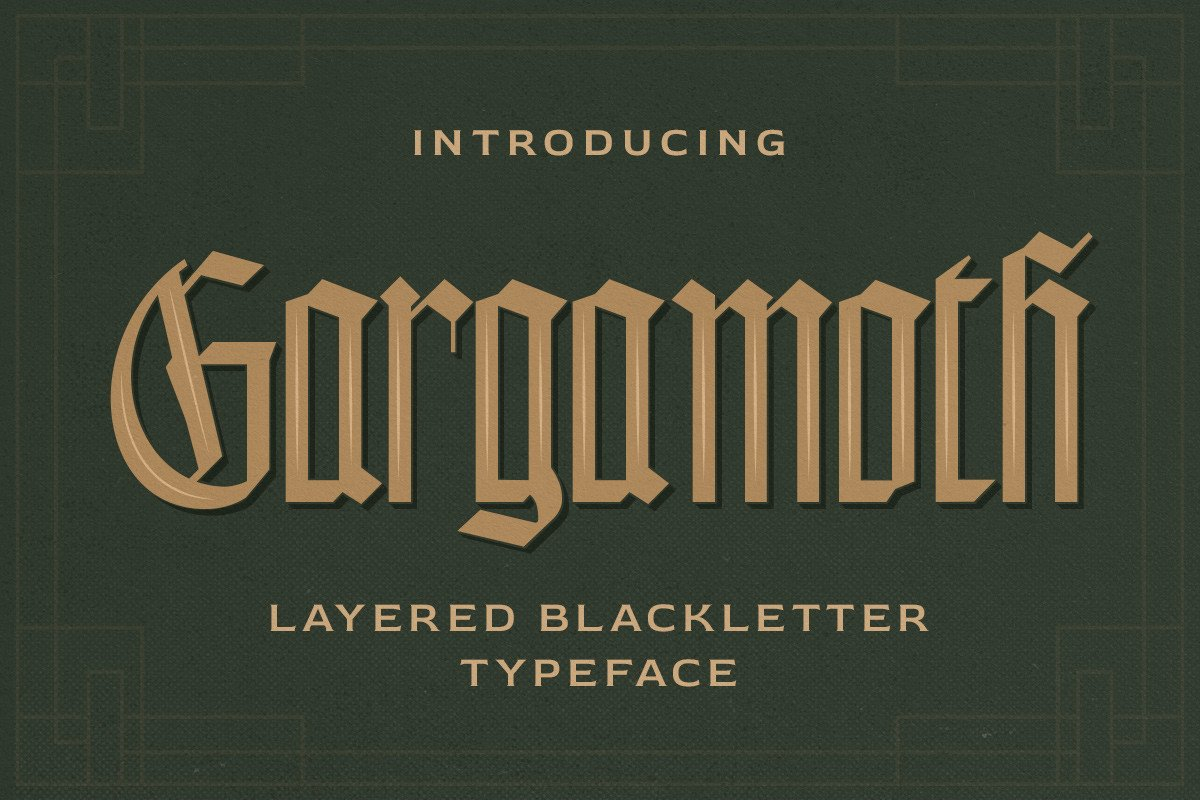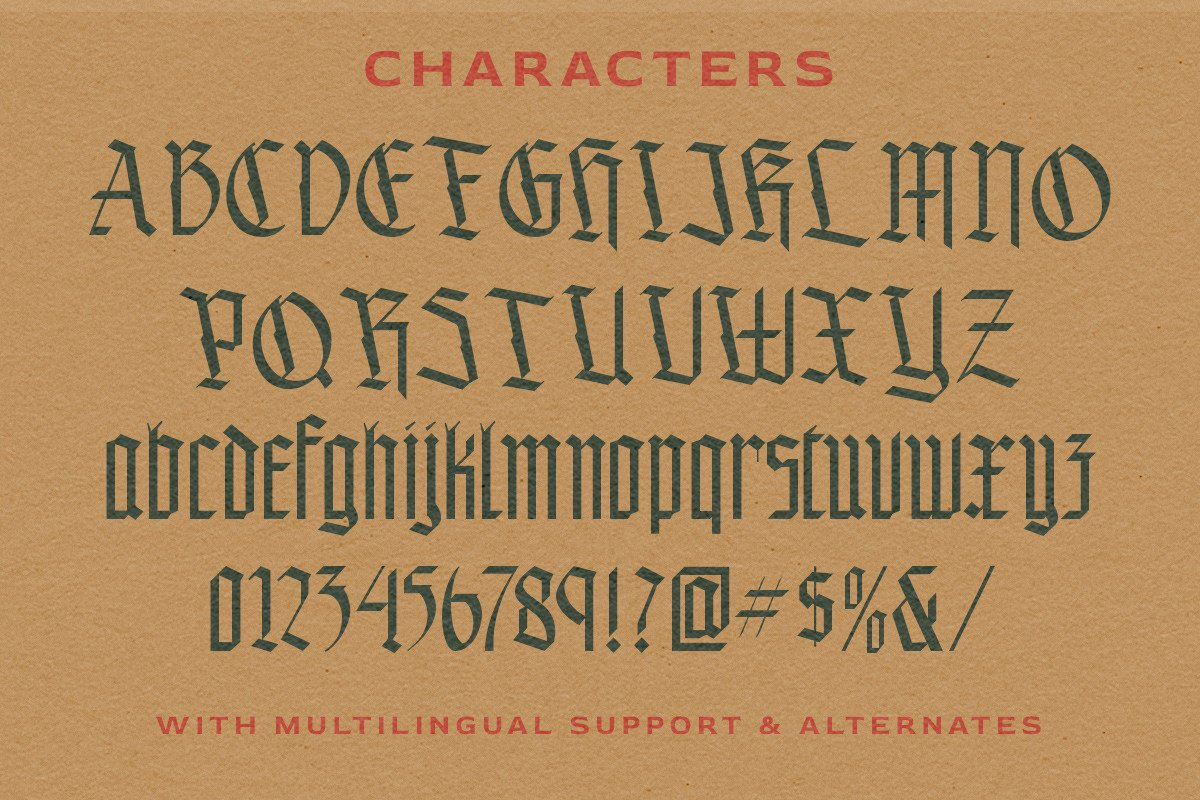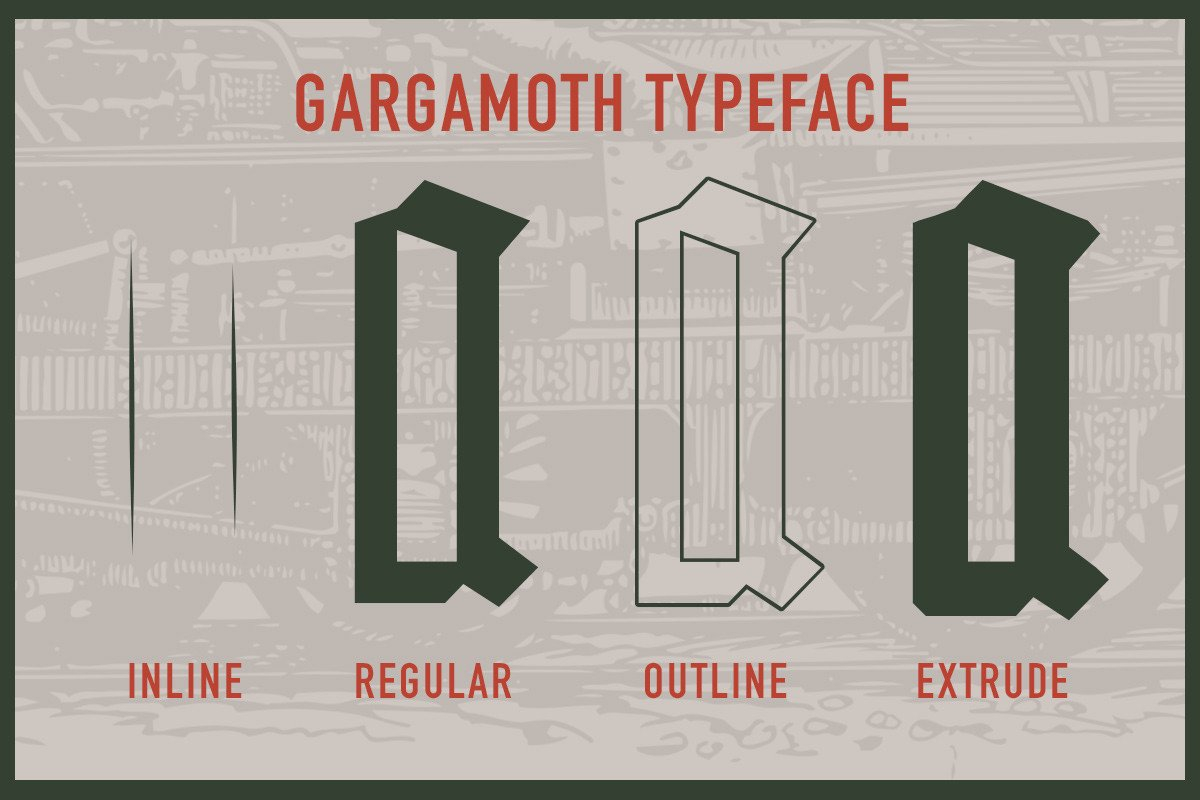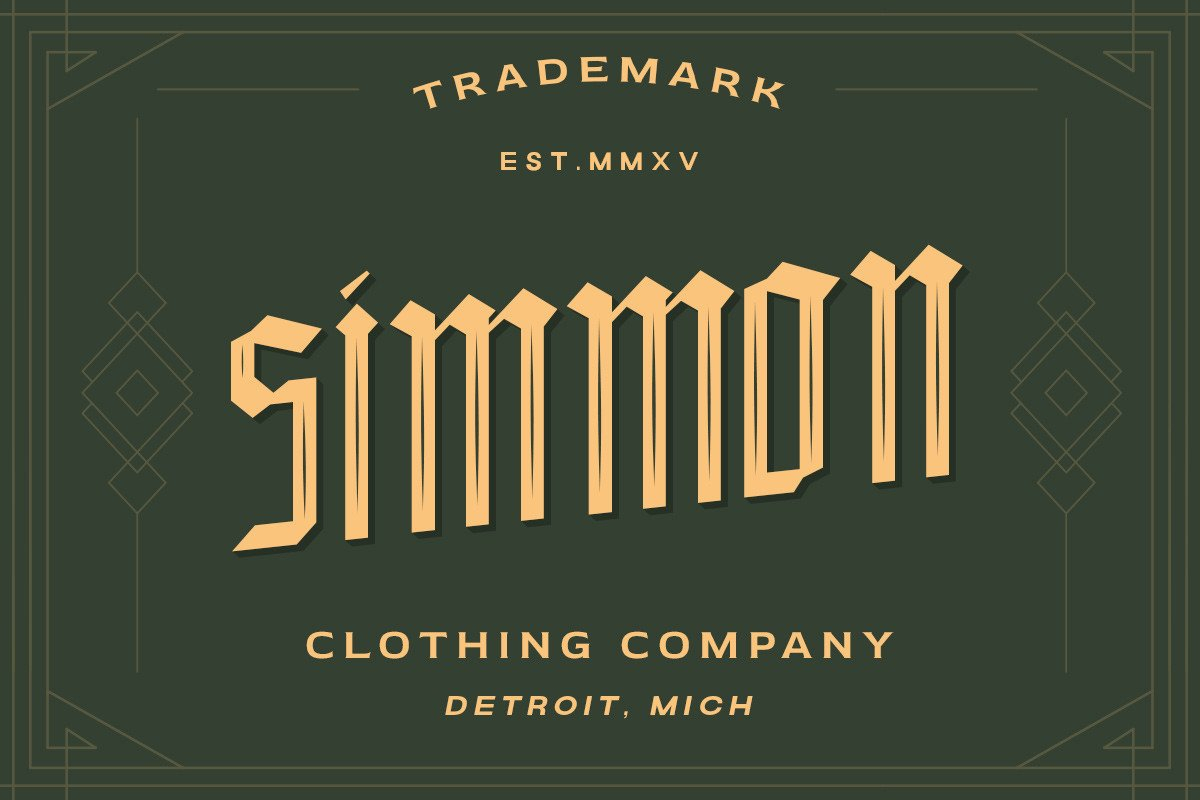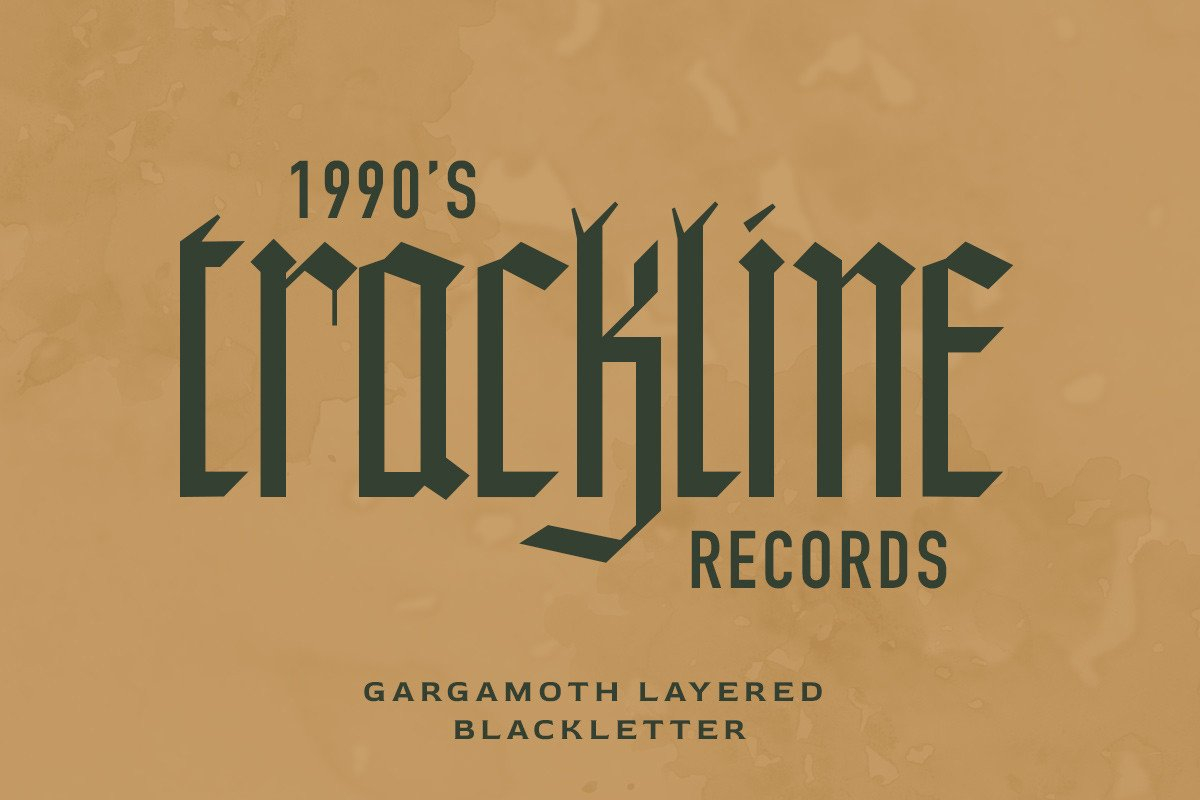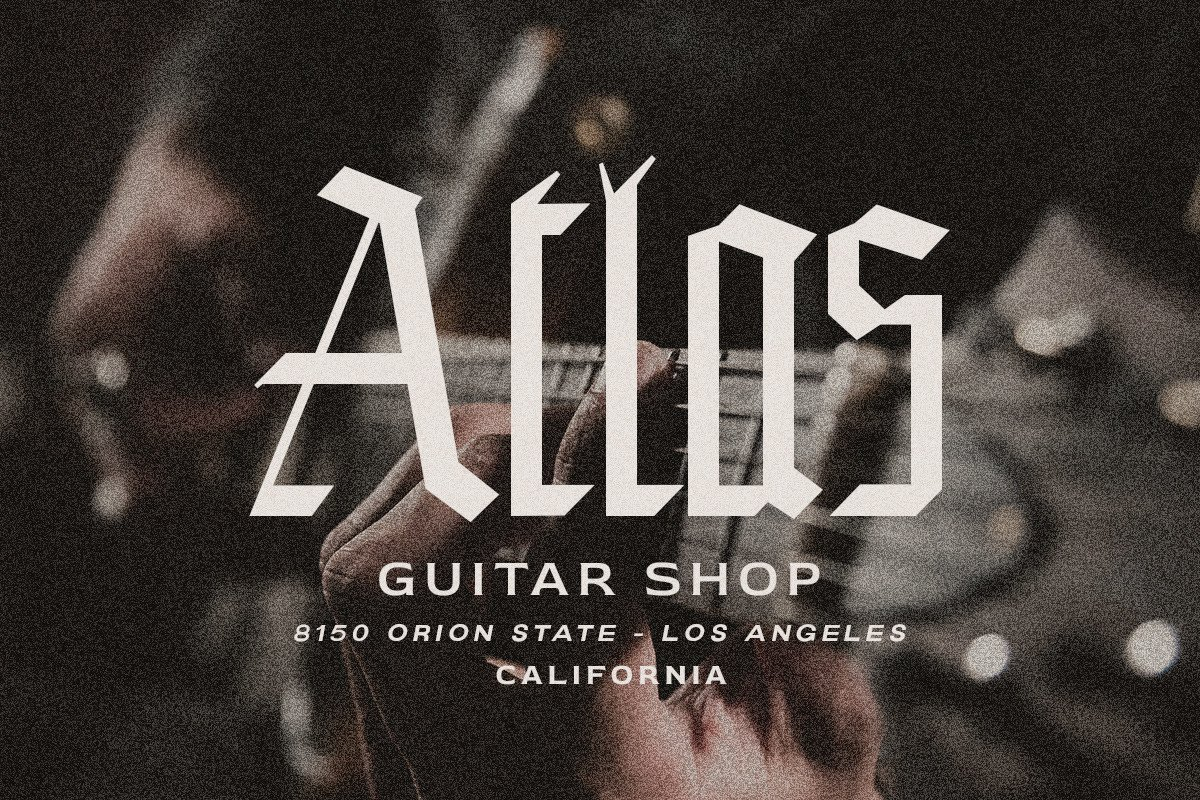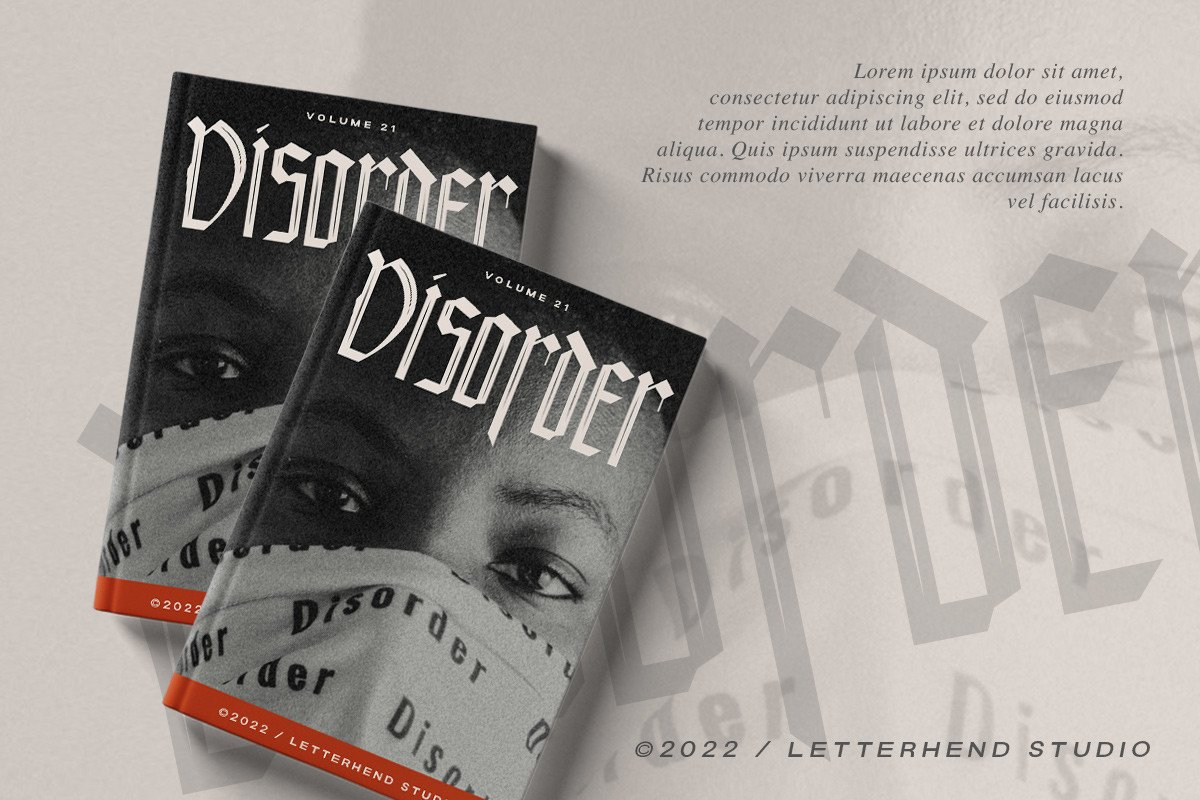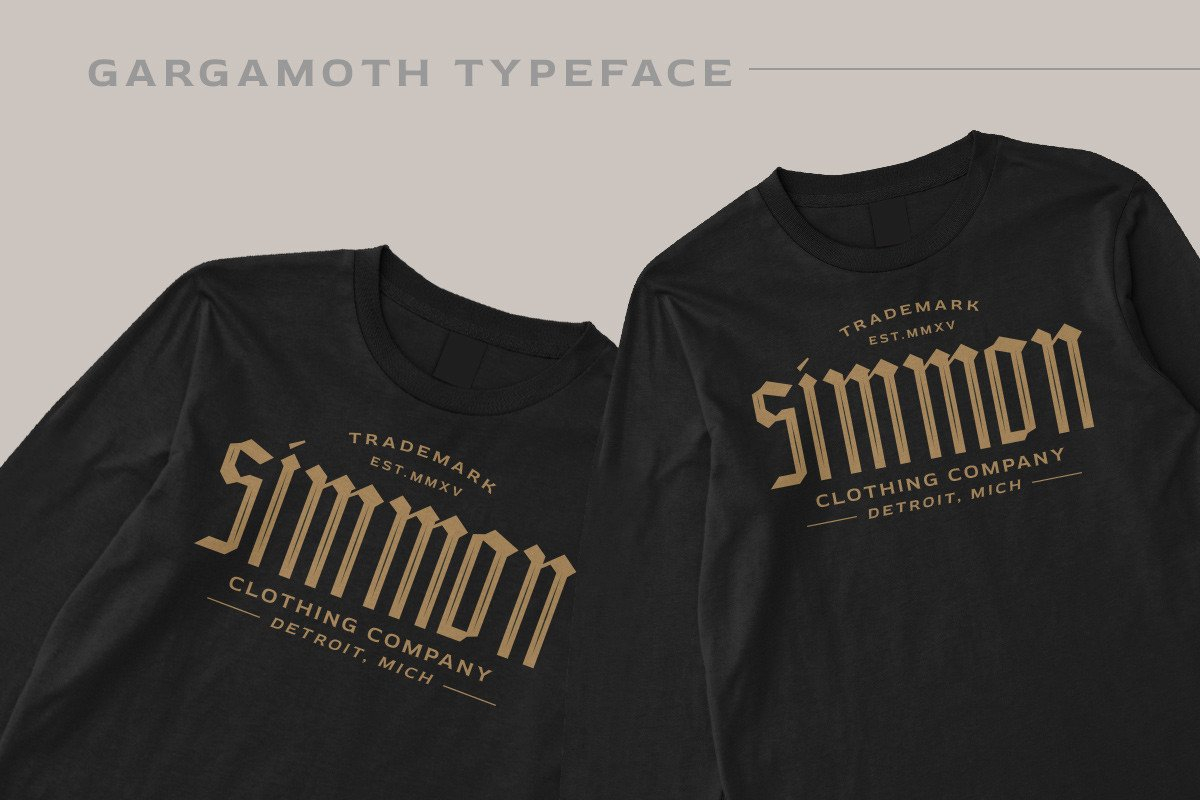
Gargamoth Font
About Gargamoth Font
Gargamoth is a cool and unique blackletter font. Fall in love with its incredibly versatile style and use it to create spectacular designs!